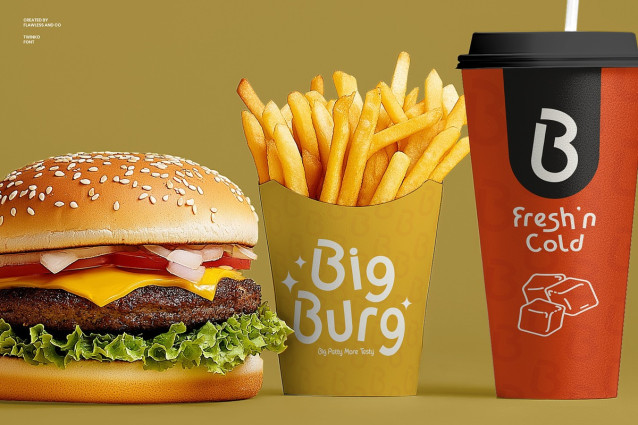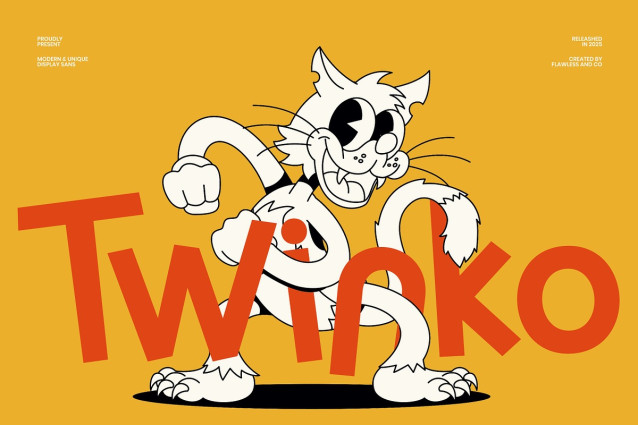
Twinko Font
Twinko Font is a modern and unique display sans serif font designed to bring energy, personality, and bold expression to your creative projects. With its chunky shapes, playful proportions, and confident letterforms, Twinko instantly grabs attention and delivers a fun visual impact. Built for standout typography, Twinko works perfectly in large sizes where its character truly shines.